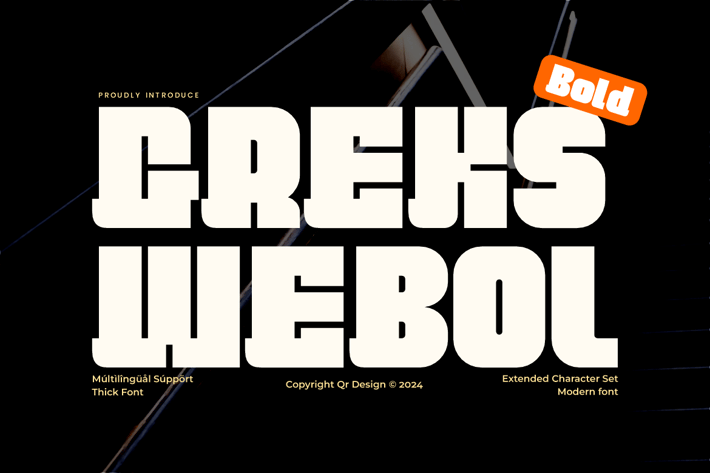
Greks Webol - Block & Bold Font
Greks Webol Font is a bold and authentic display font.
Main Features
+ Uppercase & Lowercase
+ Ligatures & Alternate
+ Numeral & Punctuations
+ Multilingual Support
+ Extended Character Set